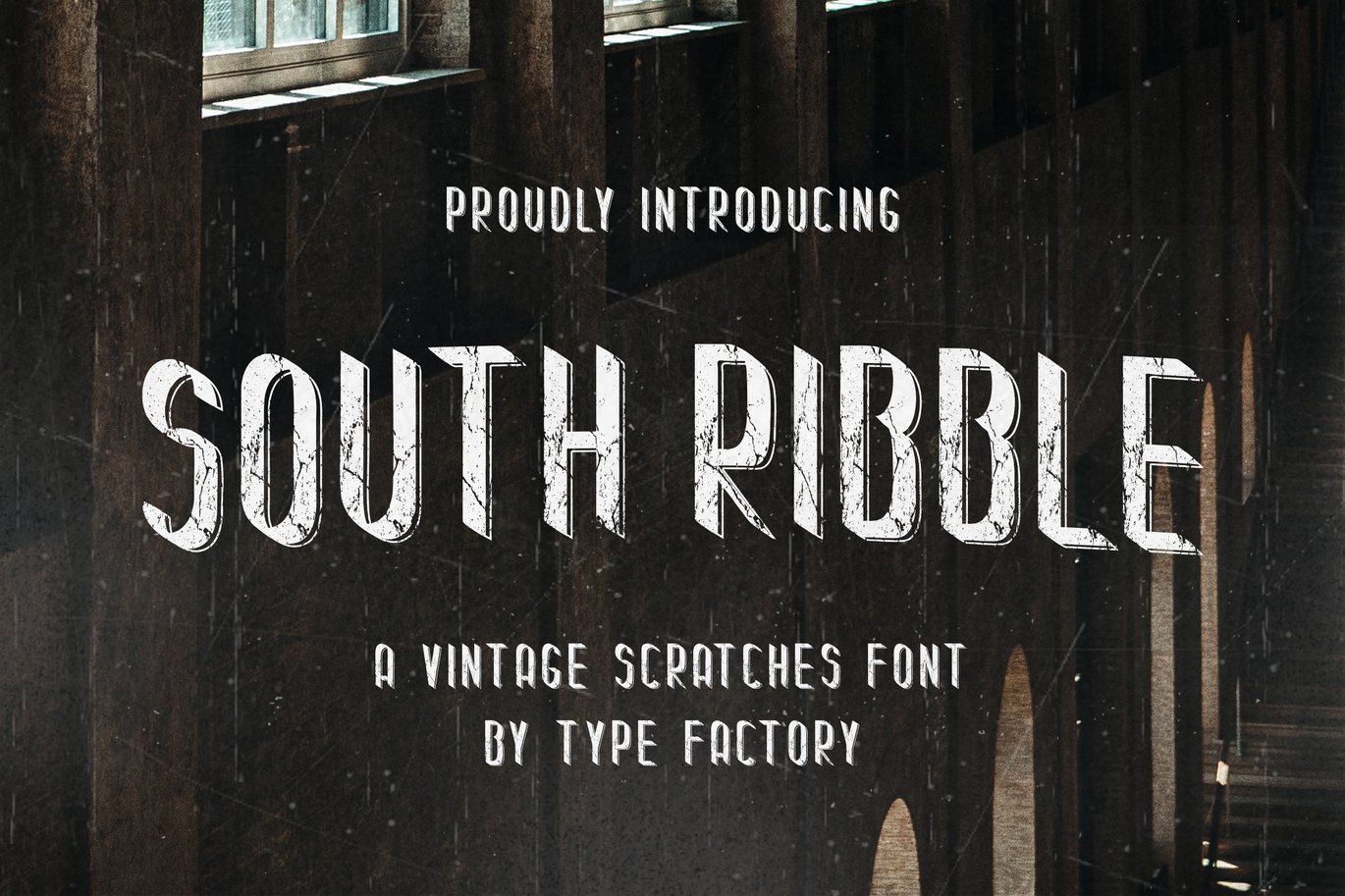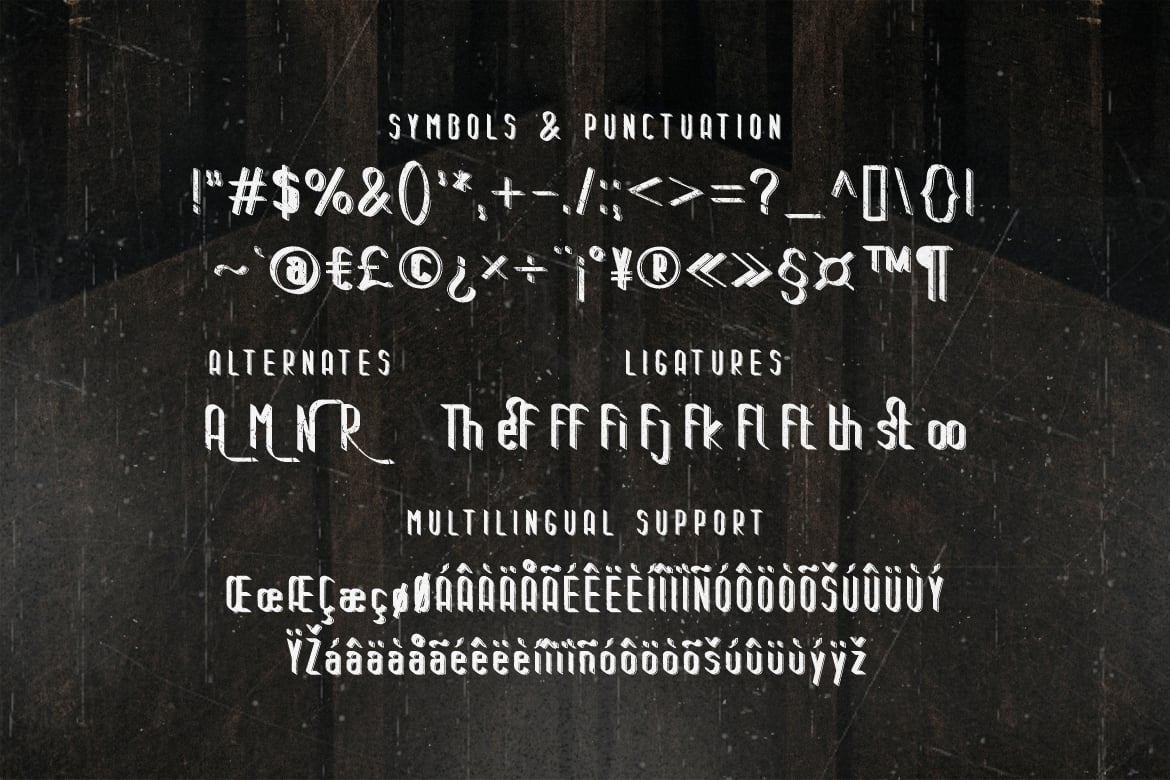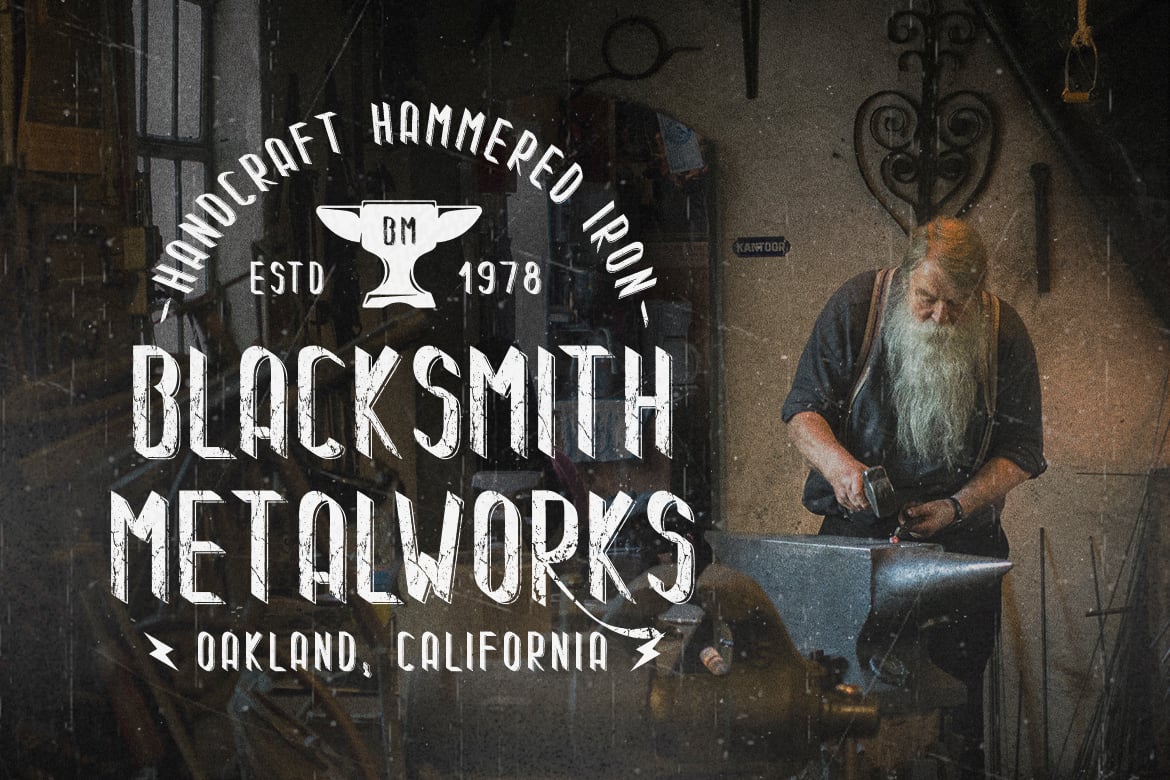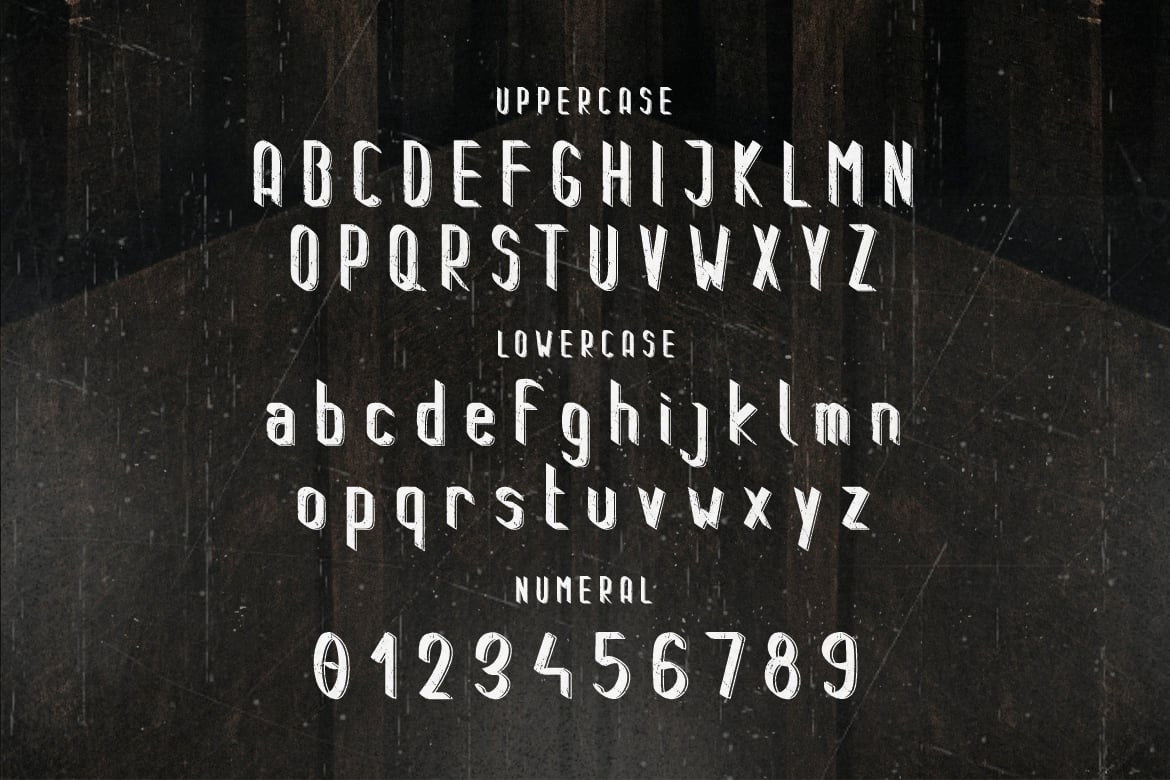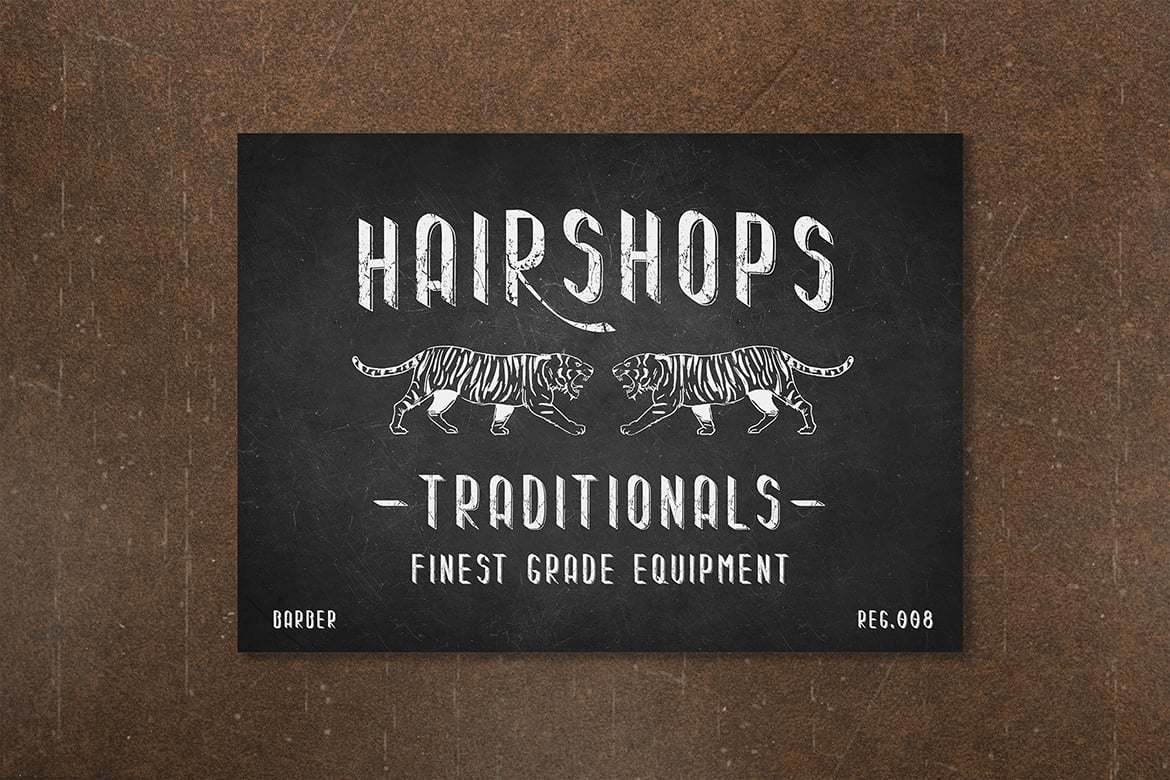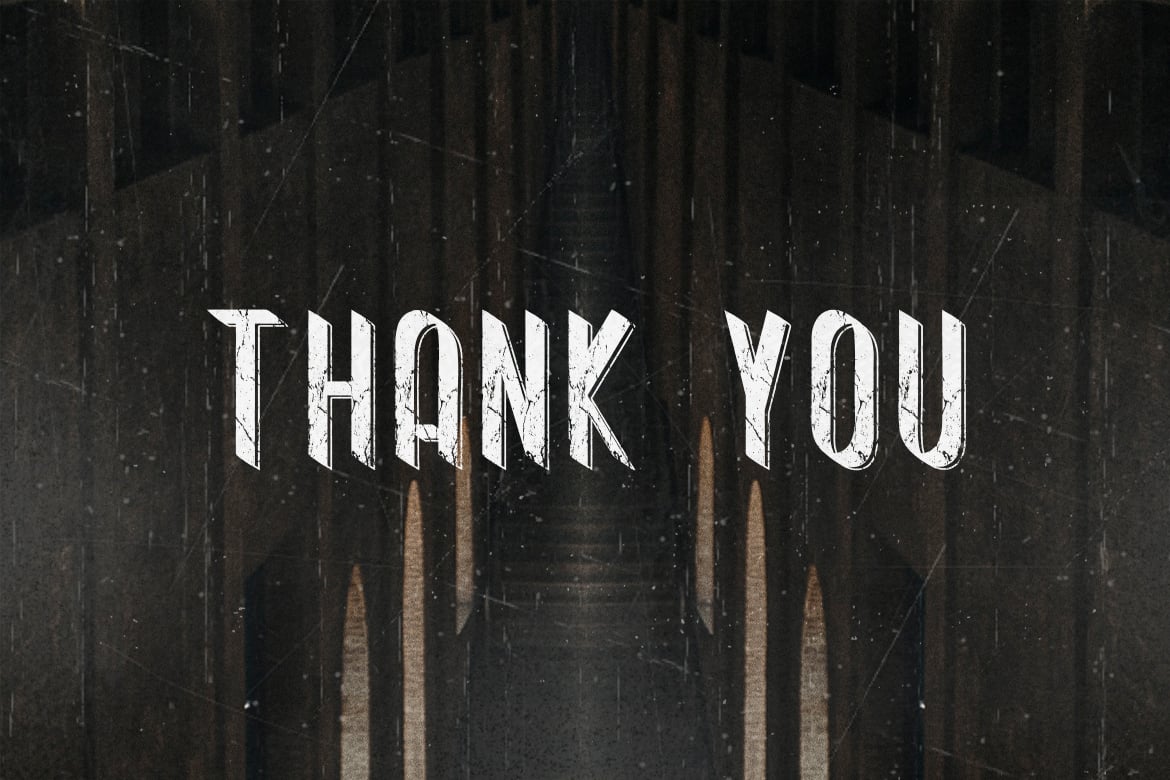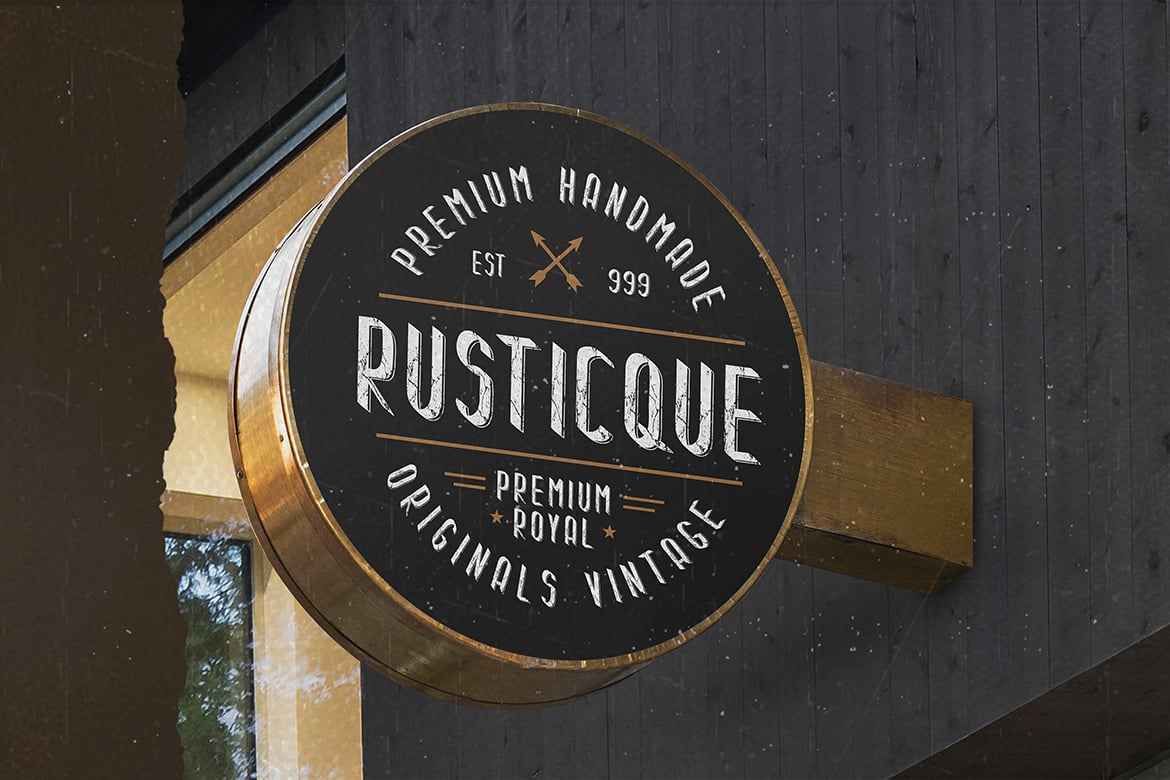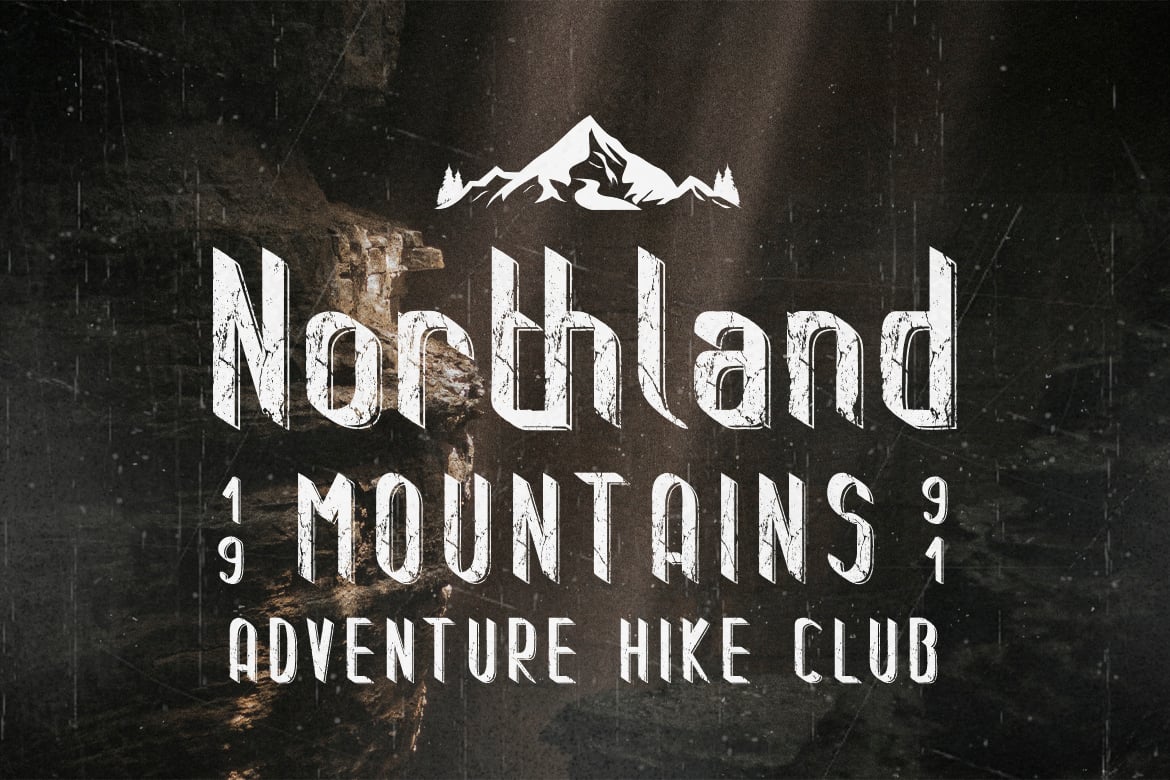
South Ribble – A Vintage Scratches Font
South Ribble is a vintage scratches font.
It can be used for various purposes such as logos, headings, hike club, coffee shop, vintage restaurant, letterhead, signage, labels, news, posters, badges and so much more.
- Symbols & Punctuation